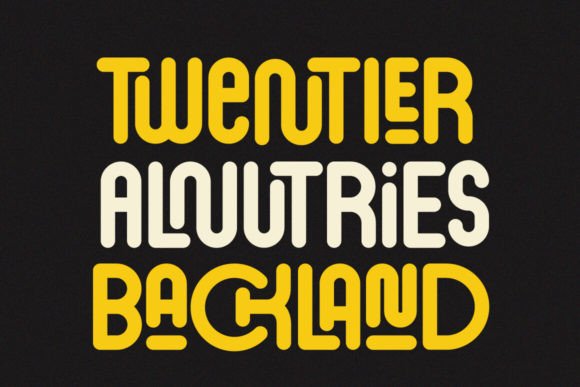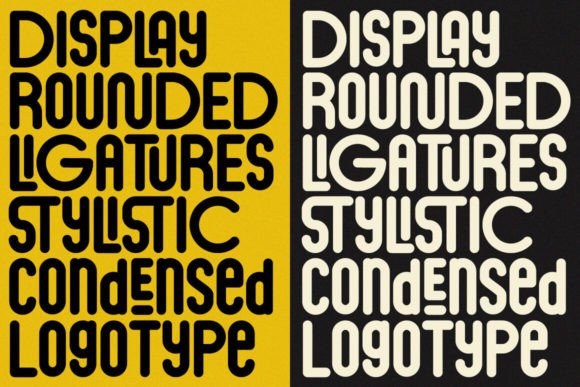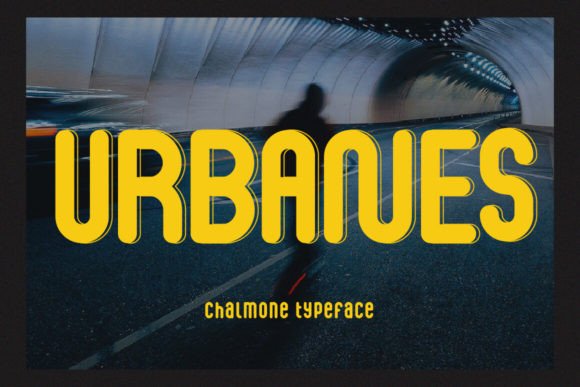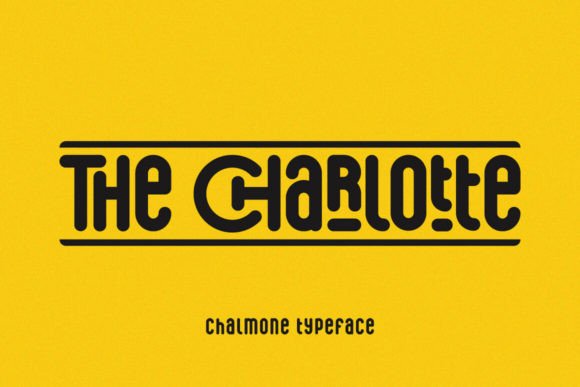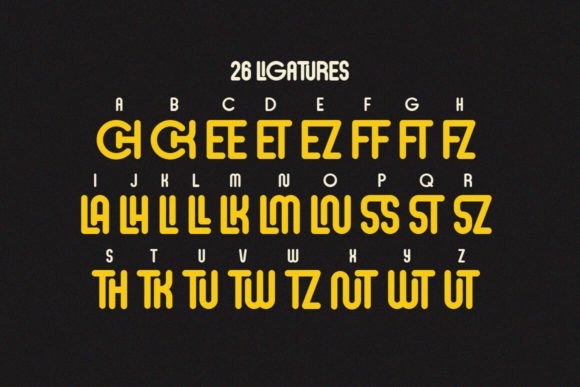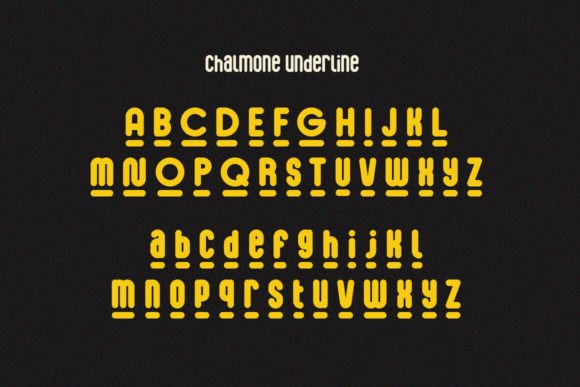
Introducing Chalmone Font: A Bold and Distinctive Sans-Serif Font
Are you tired of using the same old fonts in your design projects? Look no further than Chalmone Font, a condensed and rounded sans-serif font that is sure to make your designs stand out. With its bold and distinctive personality, Chalmone Font is perfect for designers and crafters who want to add a touch of uniqueness to their work.
What Makes Chalmone Font Special?
Chalmone Font is not just any ordinary font. It has been intentionally designed to be used in larger point sizes, but it still maintains its charm even in smaller point sizes. This makes it a versatile font that can be used in a variety of design projects, from posters and flyers to logos and branding materials.
One of the standout features of Chalmone Font is its 26 unique ligatures and alternative underlined fonts. These ligatures and alternatives allow you to add an extra layer of creativity to your designs, making them more expressive and visually appealing.
Chalmone Font is perfect for designers and crafters who want to add a touch of uniqueness to their work. Whether you’re designing a logo, creating a poster, or crafting a handmade card, Chalmone Font is sure to make your project stand out.
With its bold and distinctive personality, Chalmone Font is perfect for projects that require a bit of attitude and flair. It’s also a great font for designers who want to create a cohesive brand identity, as it can be used in a variety of design applications.
Tips for Using Chalmone Font
Here are a few tips for using Chalmone Font in your design projects:
- Use Chalmone Font in larger point sizes to really make it pop. This font is designed to be used big, so don’t be afraid to go large!
- Experiment with the ligatures and alternative underlined fonts to add an extra layer of creativity to your designs.
- Use Chalmone Font in combination with other fonts to create a unique and visually appealing design.
- Don’t be afraid to get creative and try new things! Chalmone Font is a versatile font that can be used in a variety of design applications.
In conclusion, Chalmone Font is a bold and distinctive sans-serif font that is perfect for designers and crafters who want to add a touch of uniqueness to their work. With its 26 unique ligatures and alternative underlined fonts, PUA encoding, and versatility in design applications, Chalmone Font is a must-have font for any designer or crafter looking to take their designs to the next level.